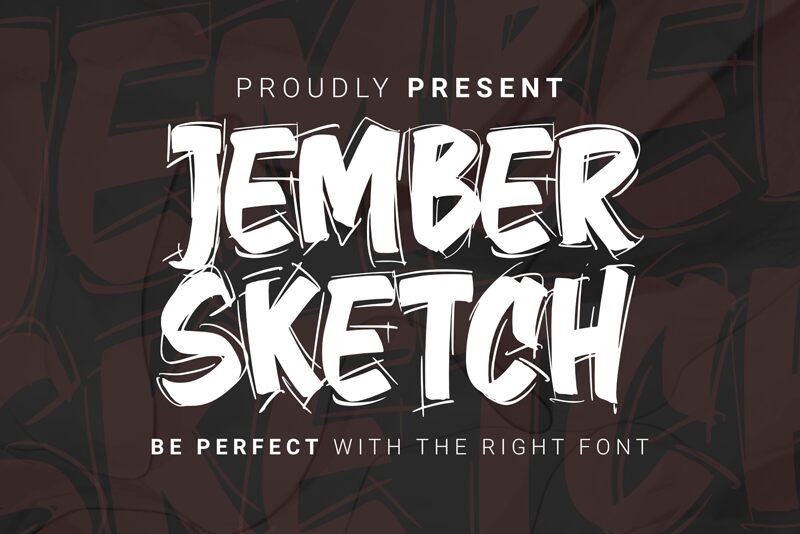
Jember Sketch
Jember Sketch font is an urban graffiti-inspired typeface by DumadiStyle. This bold comic display font brings street art aesthetics to modern applications in youth culture and branding. Sentences written in the letters appear uniquely energetic, expressive, full of life and character.